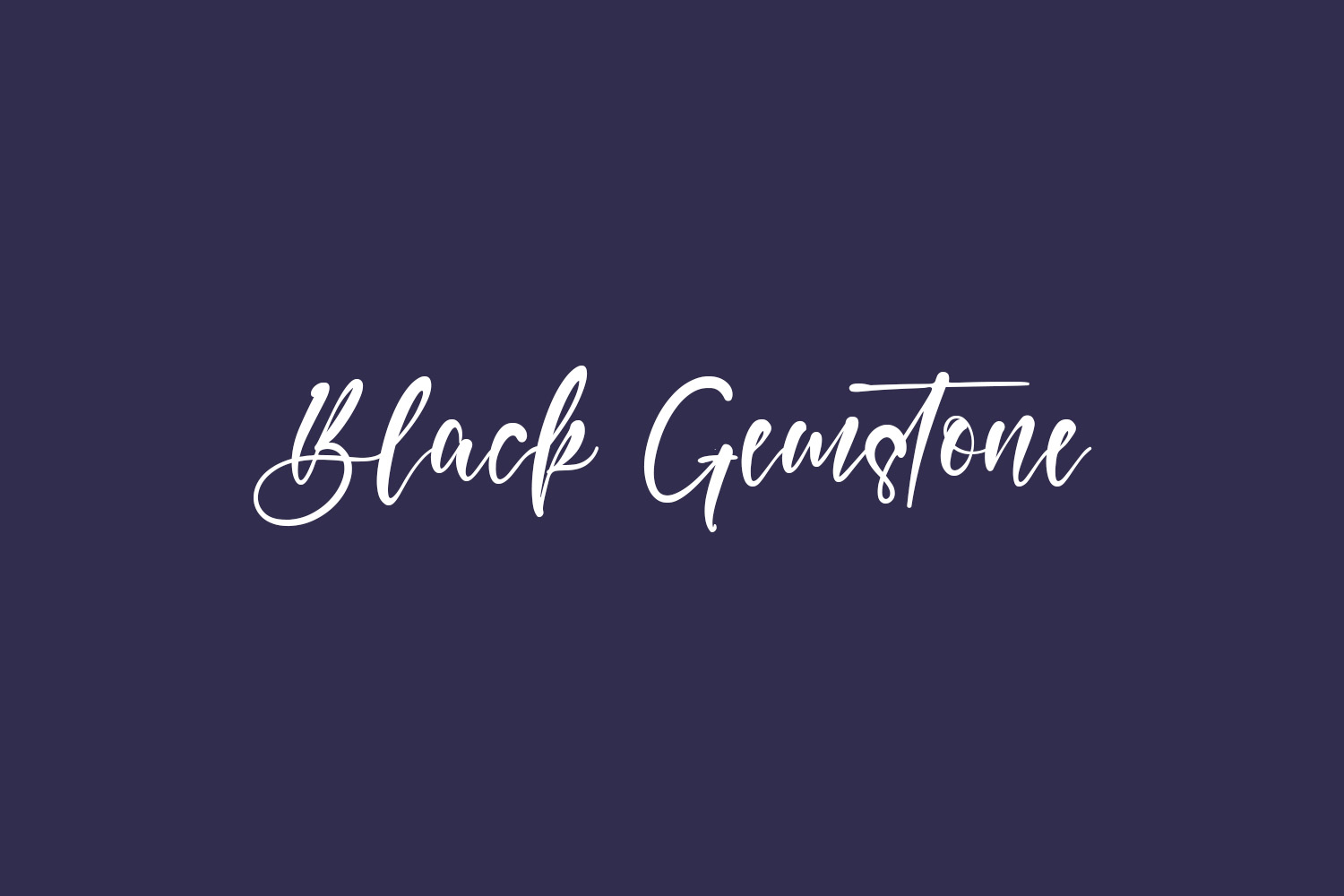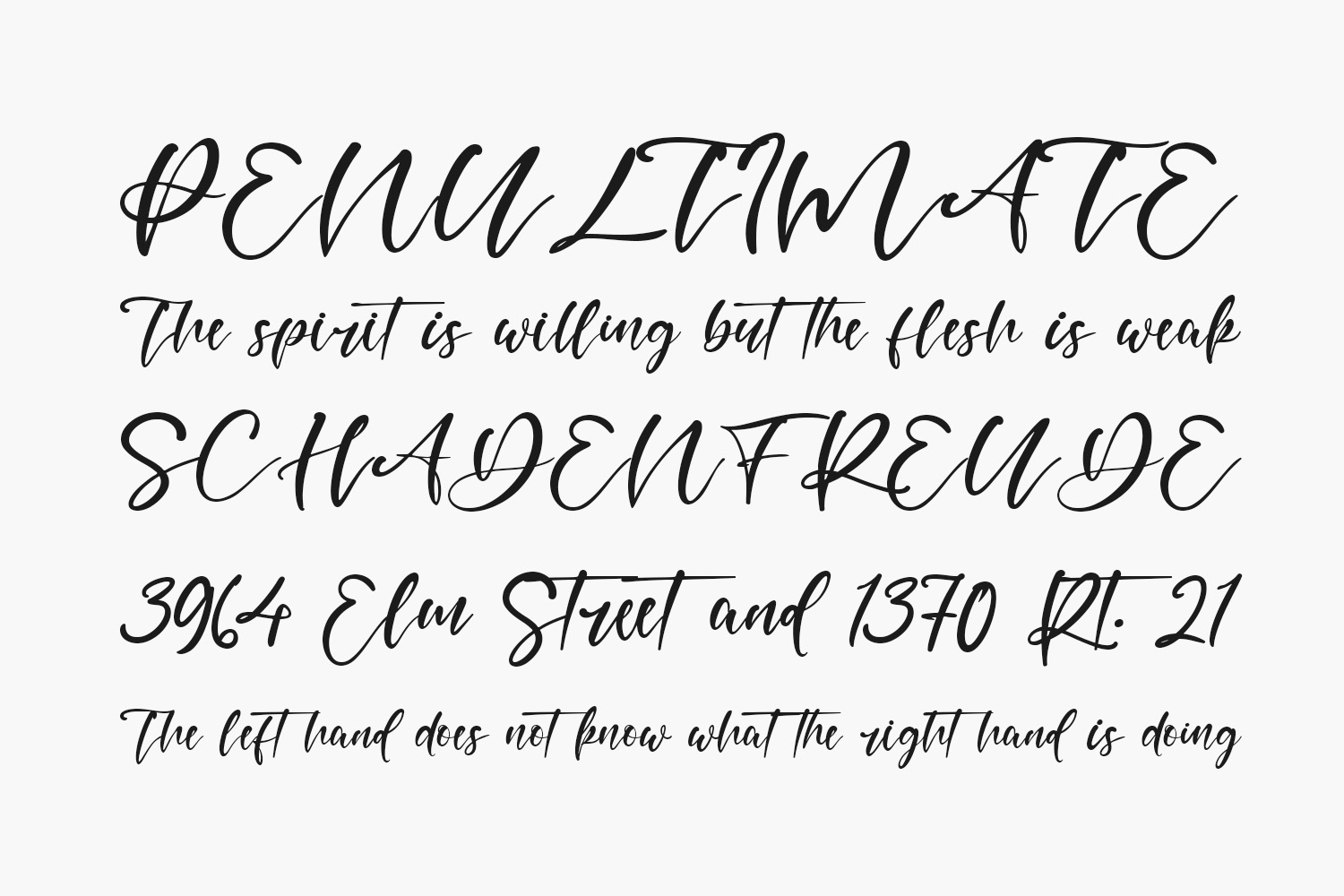
Black Gemstone Free Font is a contemporary and lively handwritten script typeface, perfect for both craft enthusiasts and designers. Black Gemstone Free Font is free for personal use only. Please purchase the full version for commercial use.